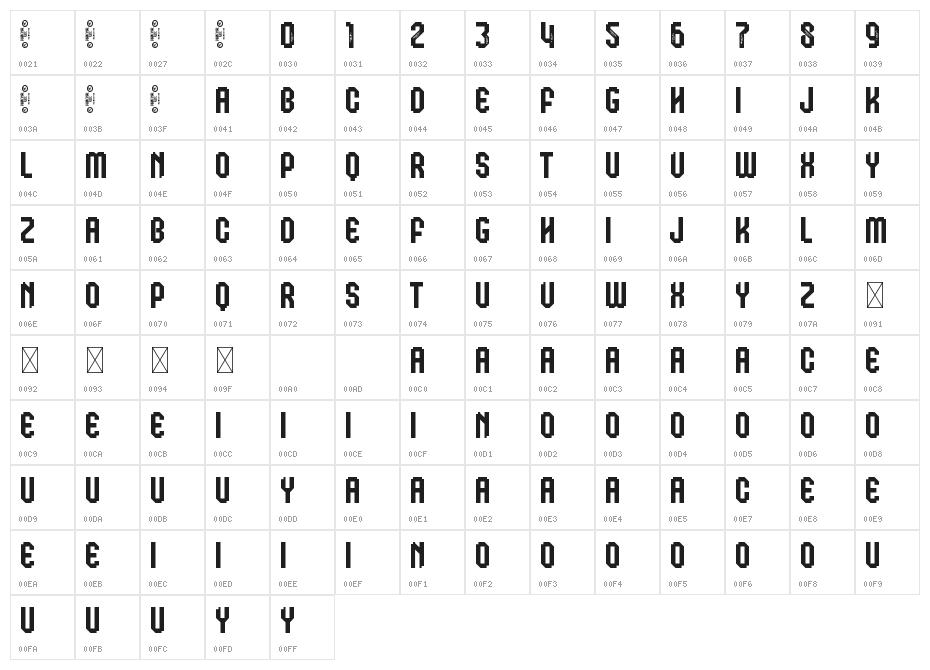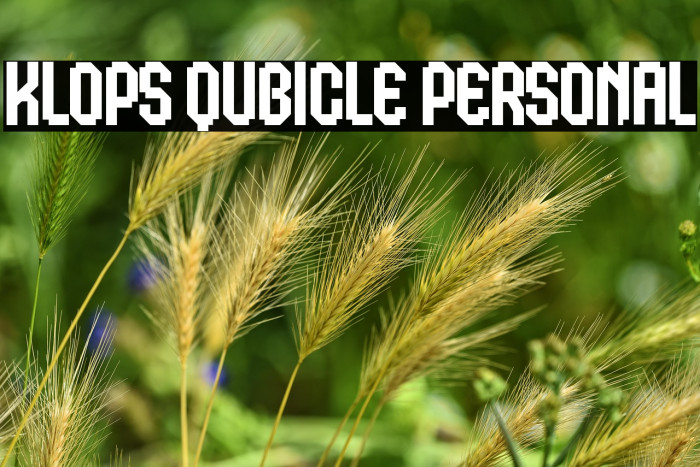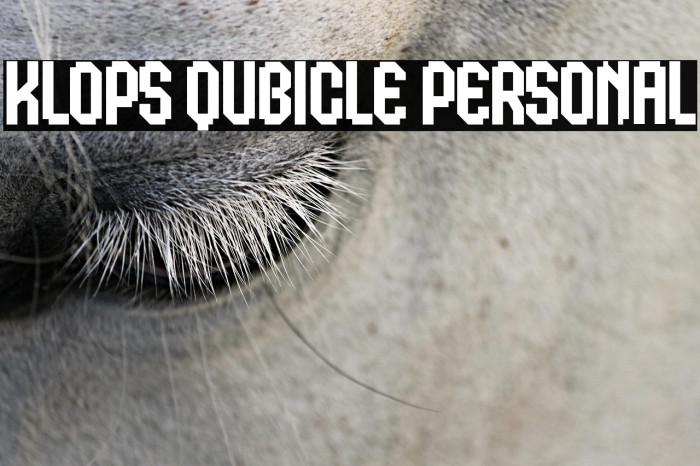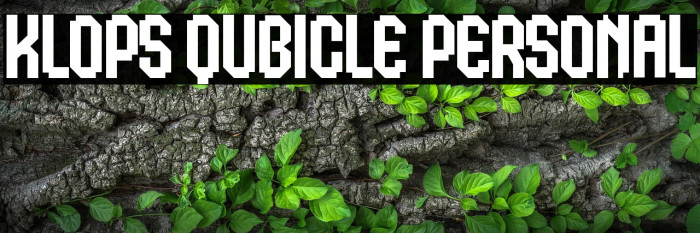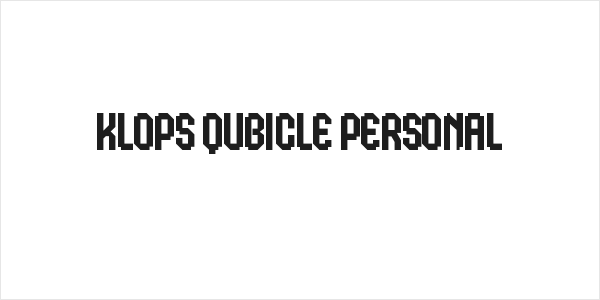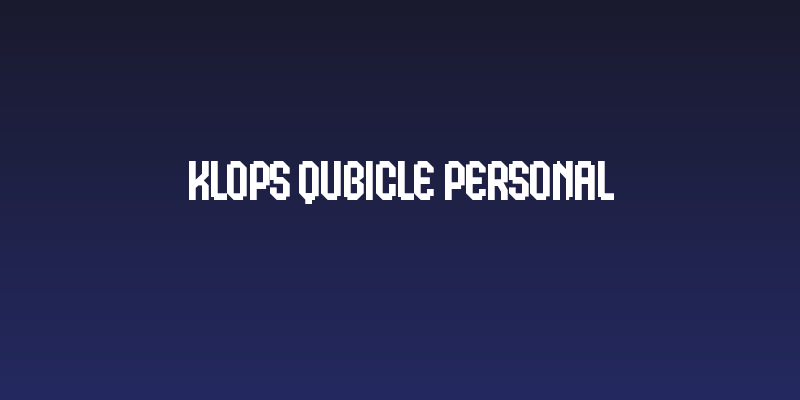
Klops Qubicle Personal Font
Klops Qubicle Personal Description
This font features a bold, geometric design with a blocky, pixelated appearance. The characters are constructed with sharp angles and straight lines, giving it a digital, retro feel reminiscent of early video game graphics. The uniformity in stroke width across all characters contributes to a cohesive and structured look. The font is highly legible and commands attention, making it suitable for standout headlines or titles. Its distinctive style is both modern and nostalgic, appealing to those looking for a unique and eye-catching typeface.
| Overall Style | Modern, Retro |
| Proposed Projects | Ideal for video game graphics, retro-themed posters, digital art projects, and tech-related branding. |